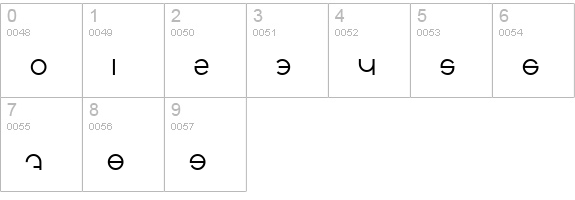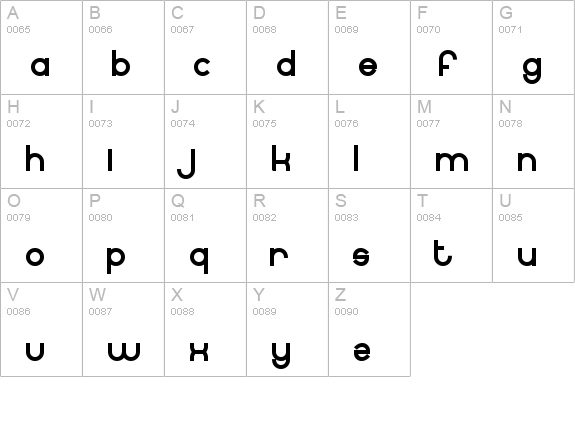
BN Internet Font Details
Introducing the BN Internet font, a sleek and modern typeface designed for the digital age. With its clean lines and contemporary style, BN Internet is perfect for websites, social media graphics, and online content. This versatile font is ideal for creating a professional and engaging online presence. Best of all, BN Internet is completely free to use! You can download this font at FontsMarket.com and start using it in your projects right away. Whether you're designing a website, creating social media posts, or crafting digital marketing materials, BN Internet is the perfect choice for a polished and modern look. Don't miss out on this fantastic opportunity to enhance your online presence with the stylish and sophisticated BN Internet font. Download it for free today and take your digital designs to the next level!